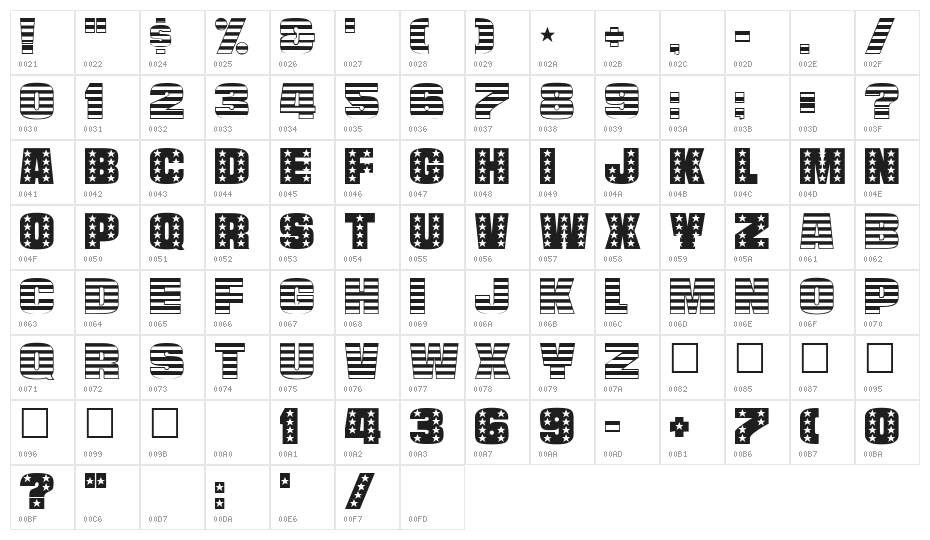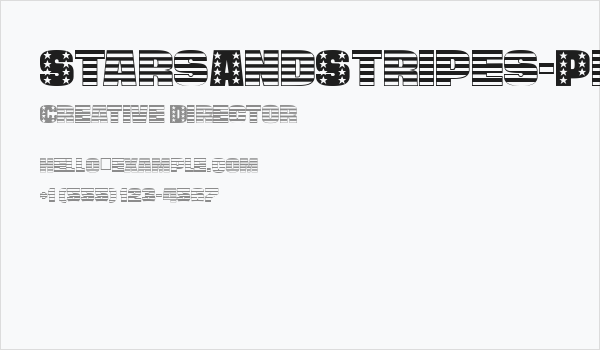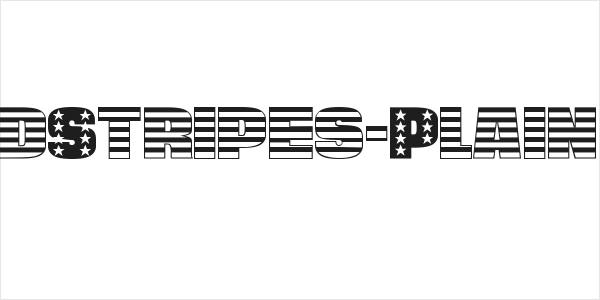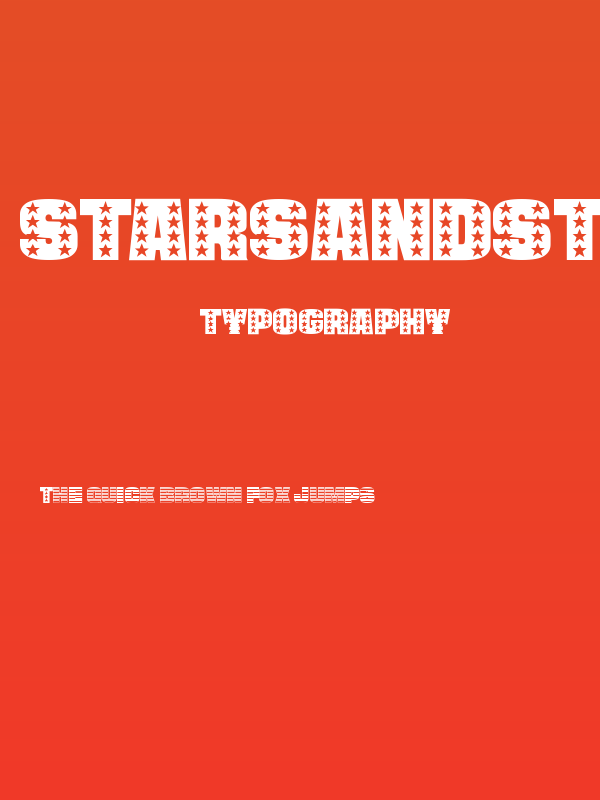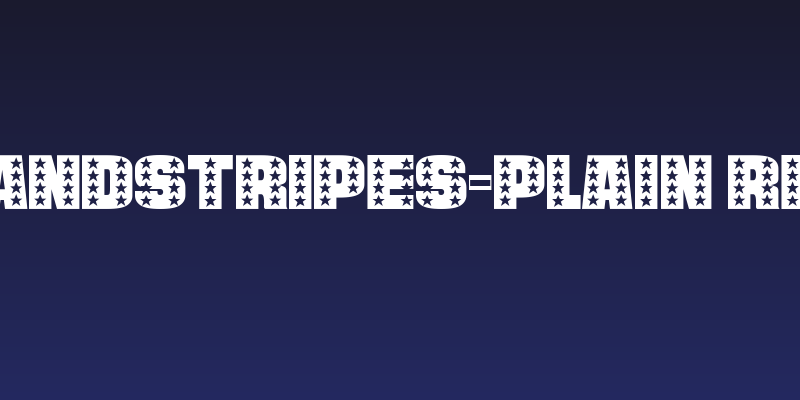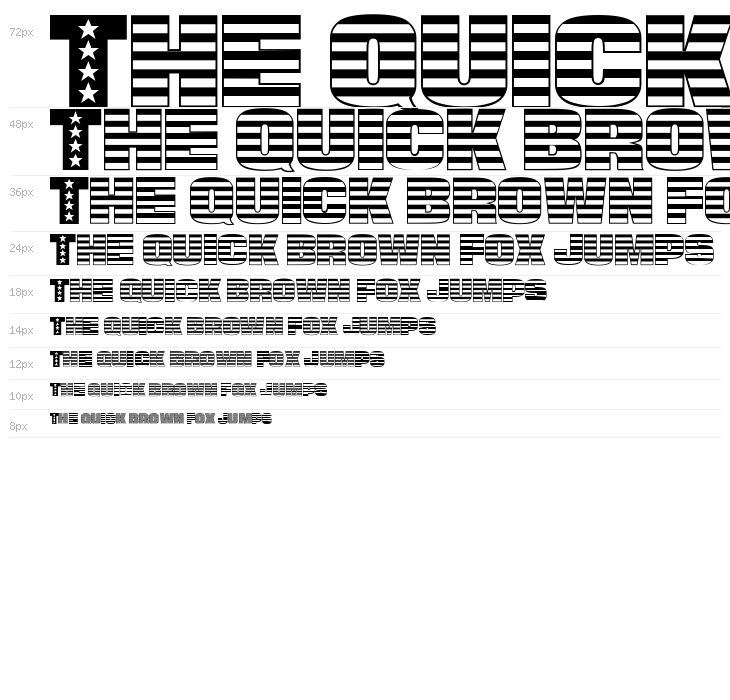
StarsAndStripes-Plain Regular Font
StarsAndStripes-Plain Regular Description
This font features a bold and decorative style, incorporating elements of stars and stripes into its design. The uppercase letters are filled with stars, while the lowercase and numbers showcase horizontal stripes, creating a patriotic and eye-catching appearance. The font is highly stylized, making it suitable for thematic projects that require a strong visual impact. Its unique design elements make it stand out, ensuring that any text set in this font will be memorable and distinctive.
Proposed ProjectsPerfect for patriotic-themed posters, event banners, or any design needing a bold and distinctive look.